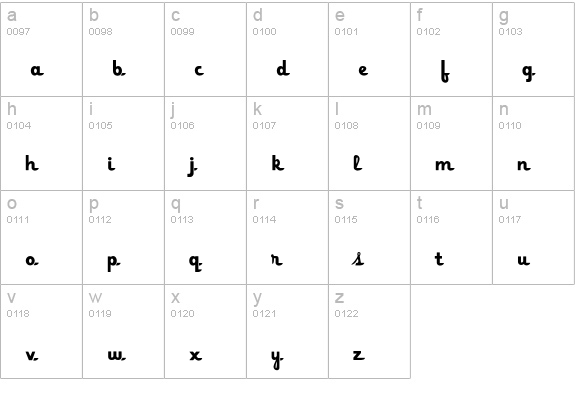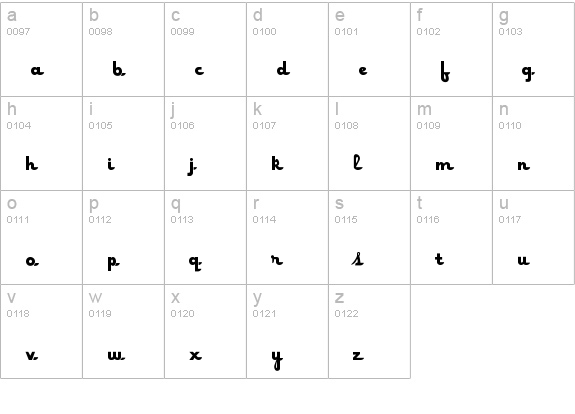
ZavTone Font Details
ZavTone font is a stylish and modern typeface that exudes elegance and sophistication. With its sleek lines and contemporary design, ZavTone is perfect for a wide range of design projects, from branding to editorial layouts. This versatile font features a unique combination of classic and modern elements, making it suitable for both print and digital applications. What's even better is that ZavTone font is available for free! You can download this stunning typeface at FontsMarket.com and start using it in your projects right away. Whether you're a designer looking to add a touch of class to your work or a business owner in need of a fresh new look for your brand, ZavTone font is sure to impress. Don't miss out on this amazing opportunity to enhance your designs with this exquisite font – download ZavTone today!